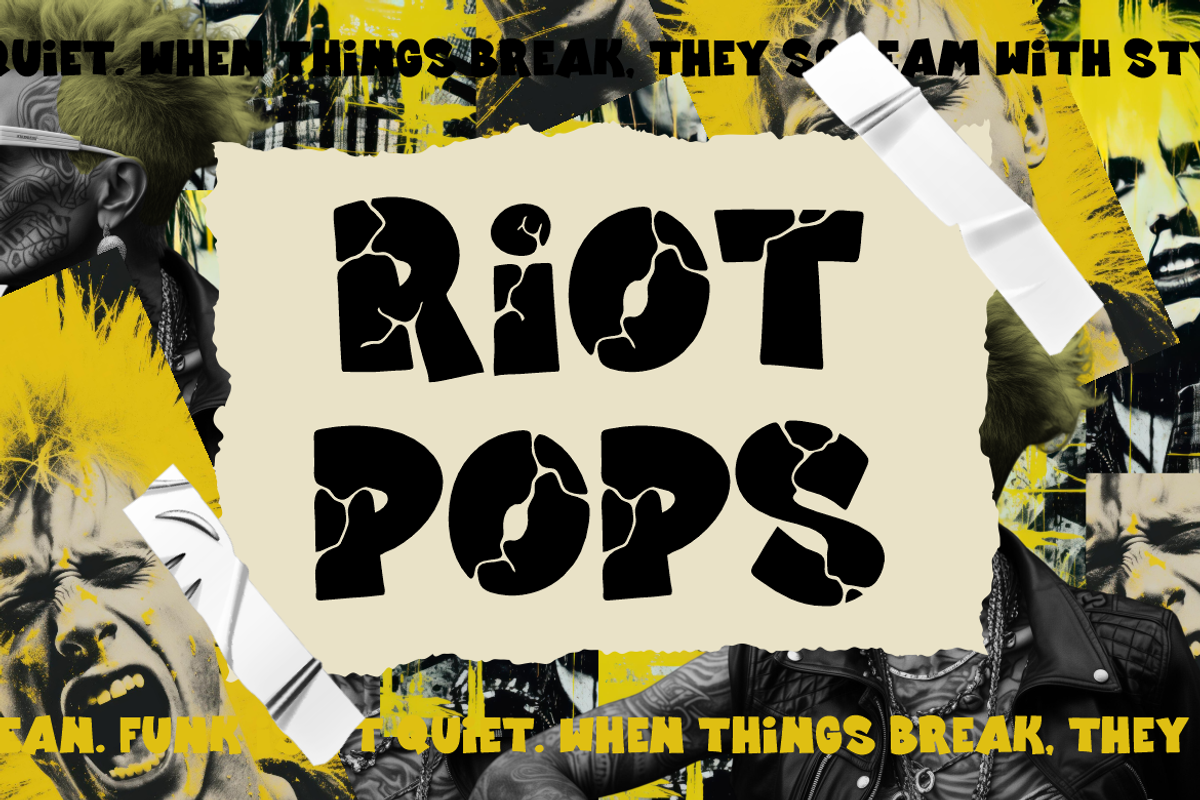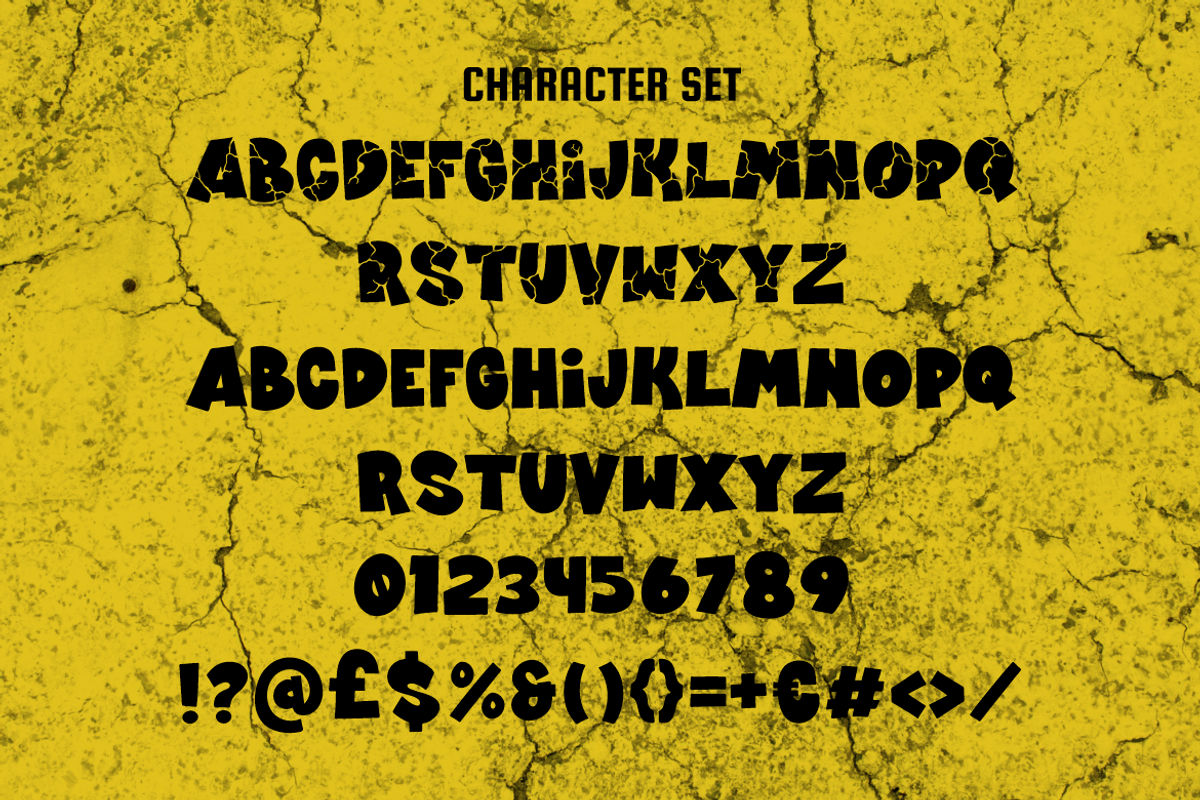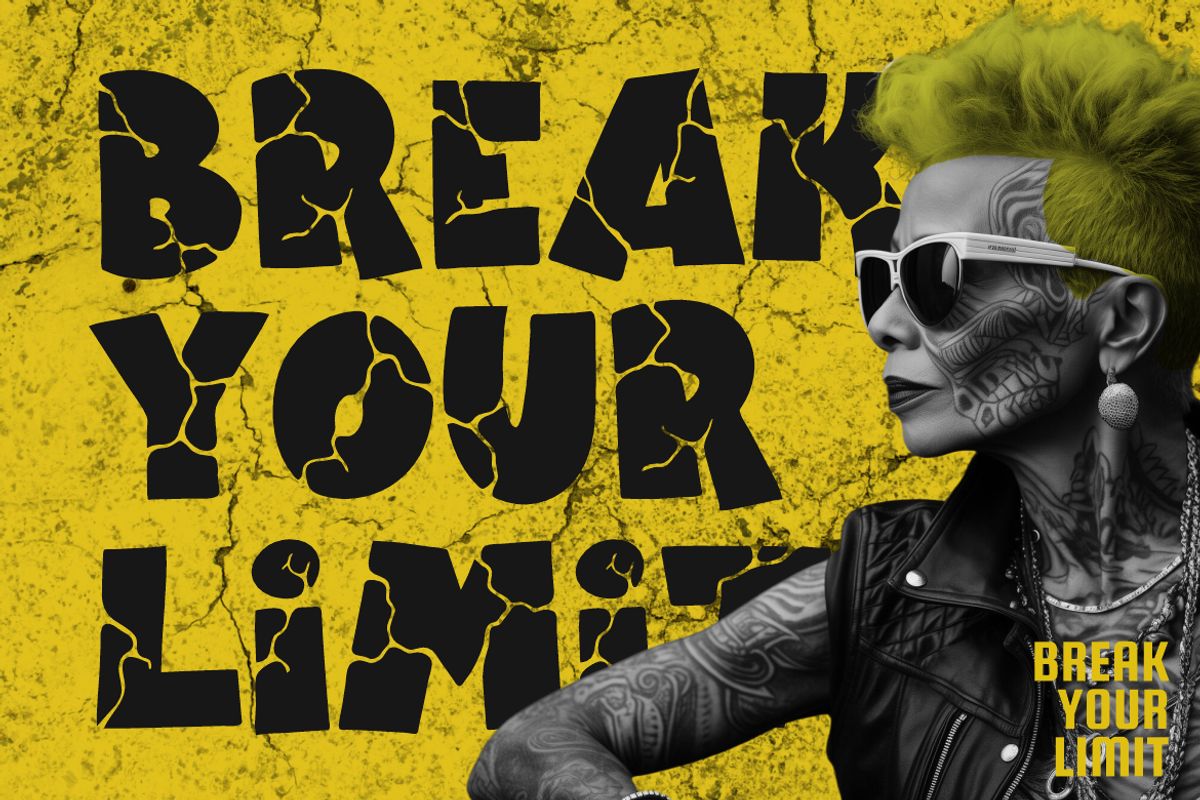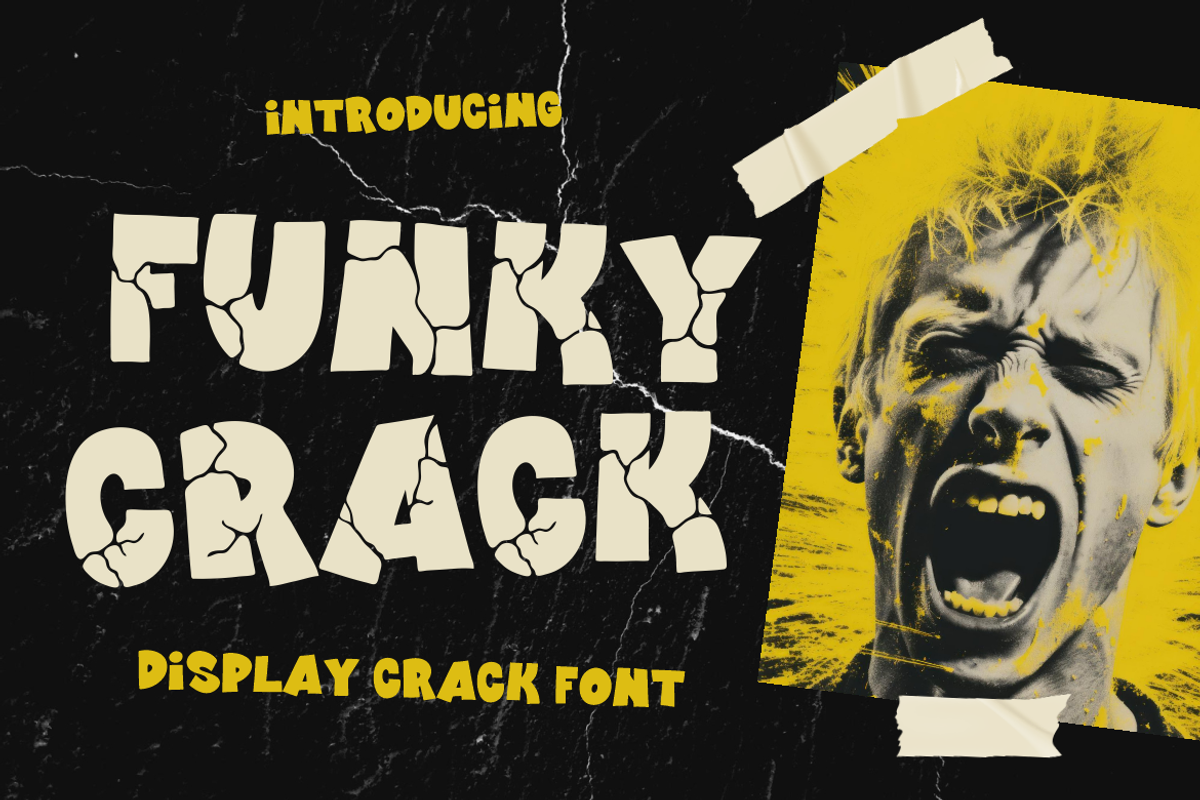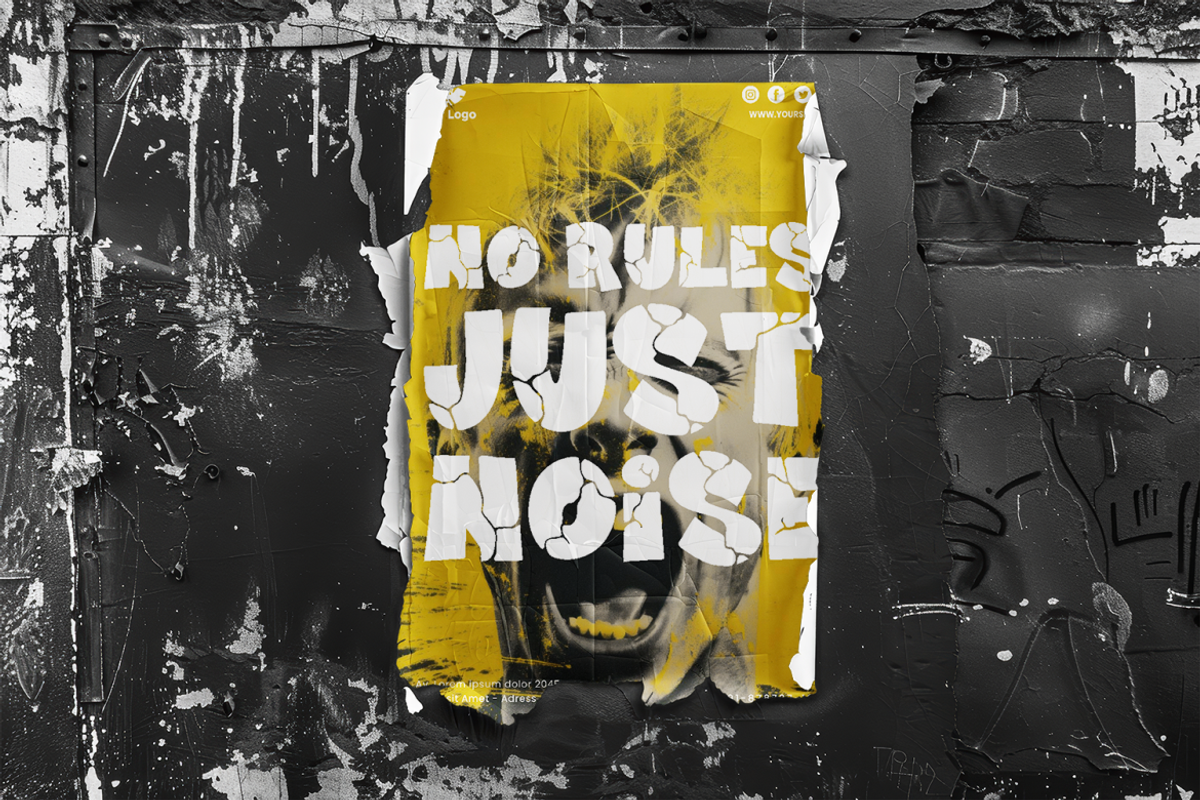
Funk Crackle Display Crack Font
Funk Crackle Display Crack Font is a powerful display typeface built to break the rules of design. Each letter is crafted with cracked, fragmented details that resemble shattered stone or broken walls. The irregular texture brings a rebellious energy, making this font ideal for designs that aim to shock, inspire, and stand out. Its bold structure maintains readability while giving a raw, graffiti-inspired aesthetic. The font works perfectly in large sizes, ensuring that every crack and break becomes a striking visual element.
This font is designed for creatives who want to push limits and bring underground vibes into their work. Use Funk Crackle for logos, posters, streetwear branding, album covers, stickers, or bold packaging. Its unique cracked style fits perfectly in urban art, music promotions, graffiti projects, and extreme sports graphics. Each layout built with Funk Crackle feels alive with tension and movement, turning ordinary words into bold visual statements that can’t be ignored.